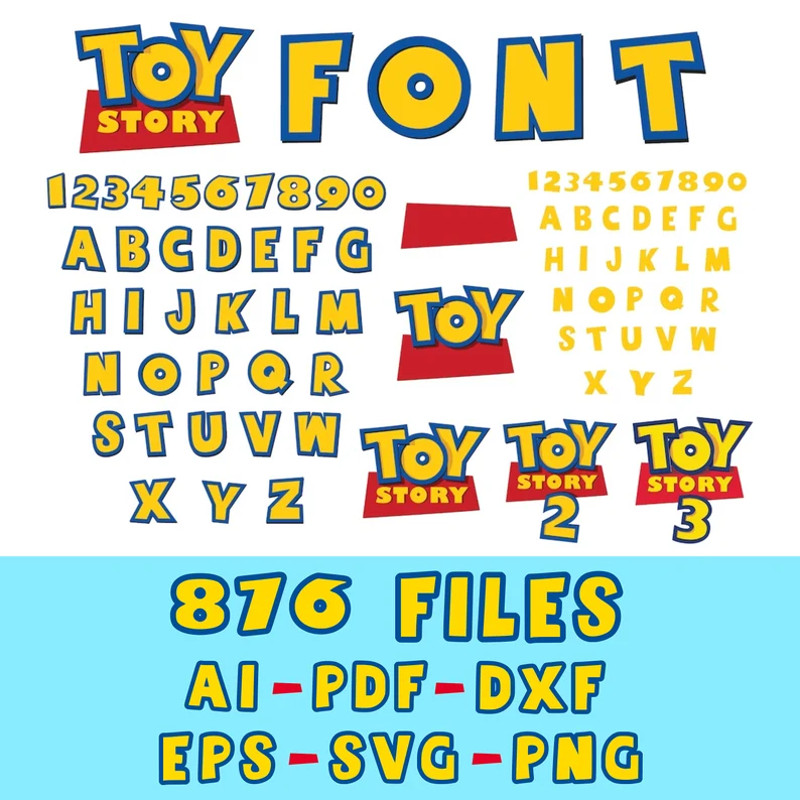
Elevate your creative projects to infinity and beyond with our Toy Story Alphabet SVG! Whether you're a die-hard Toy Story fan or just looking for a playful font to add charm to your designs, this collection has got you covered